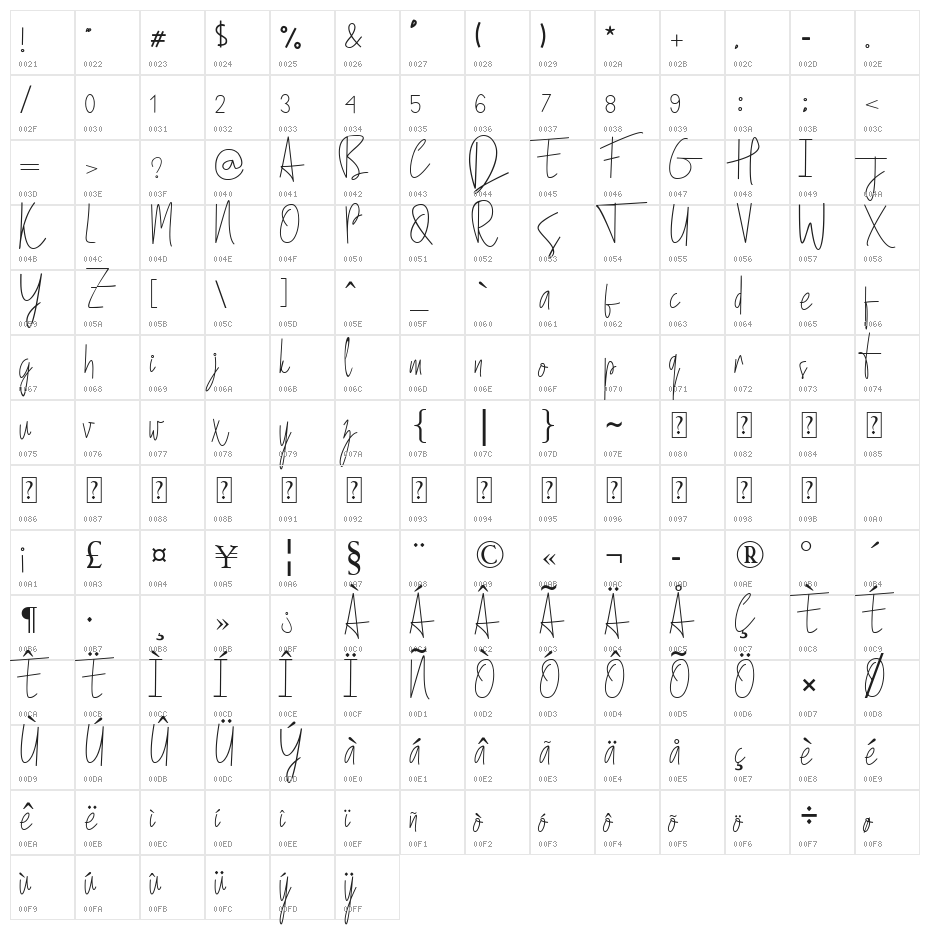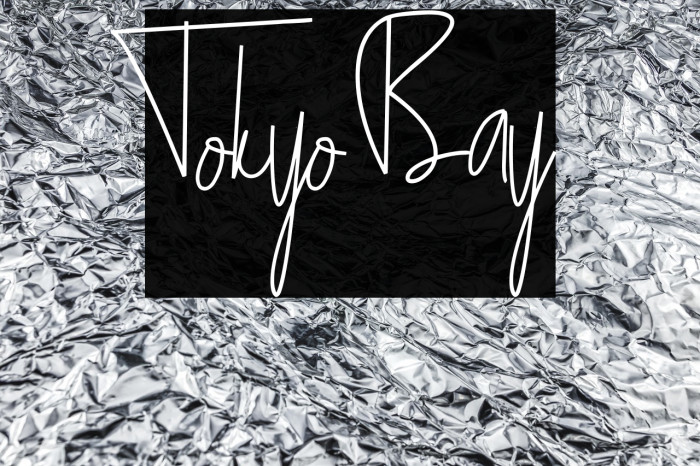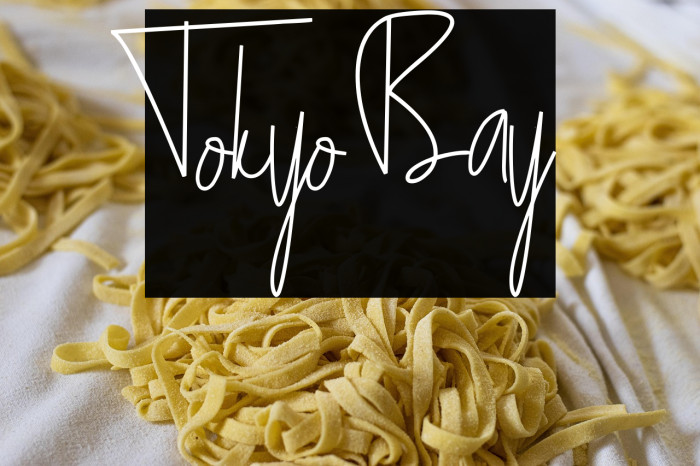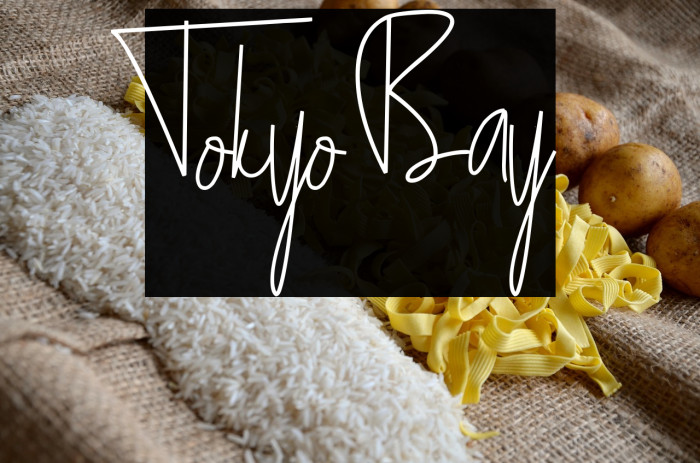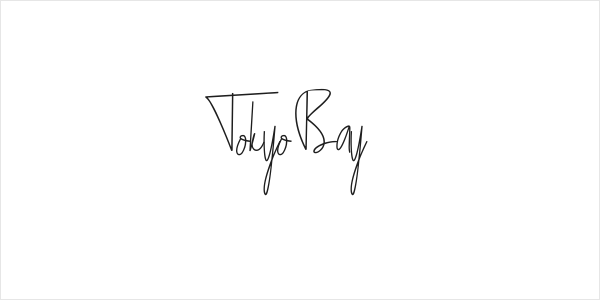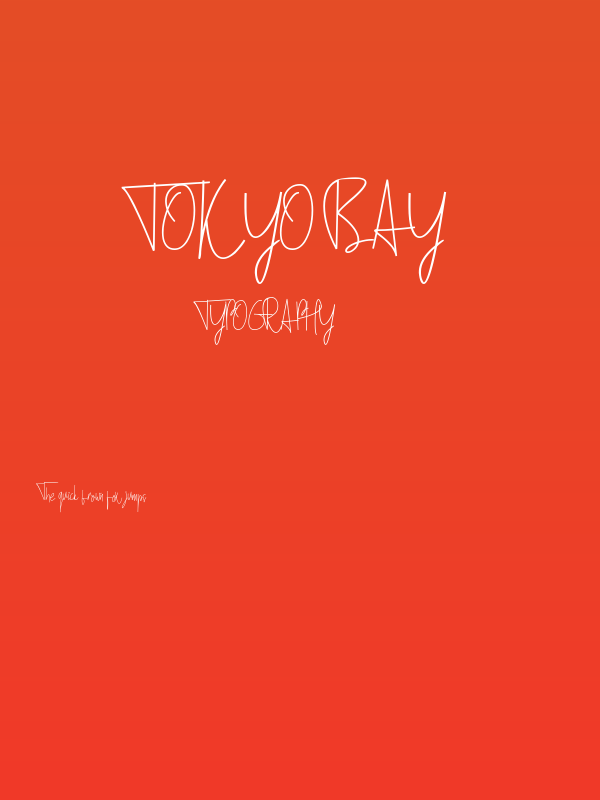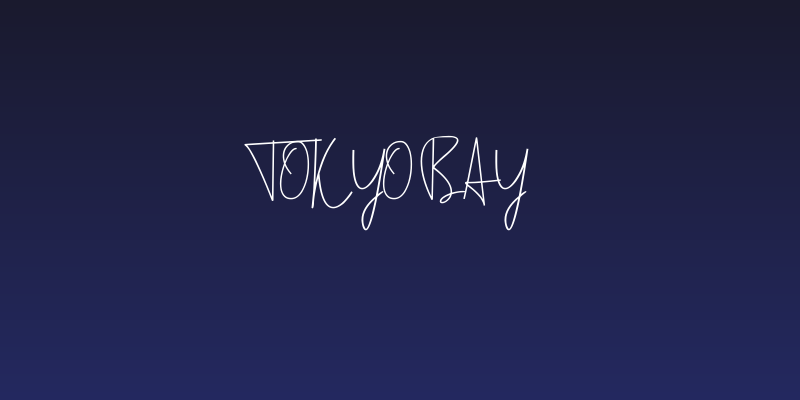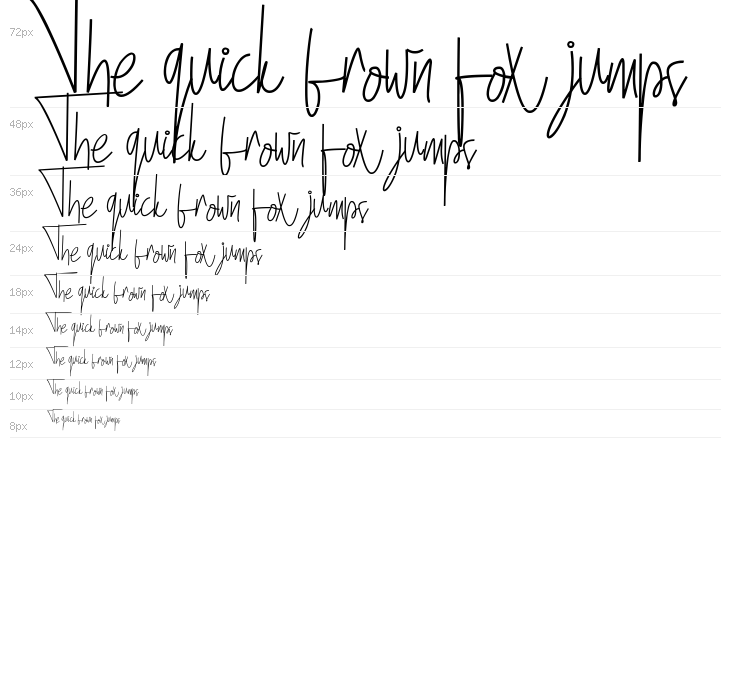
Tokyo Bay Font
Tokyo Bay Description
This font features a unique and artistic handwritten style, characterized by its tall, narrow letters and playful curves. The uppercase letters exhibit a whimsical, almost sketch-like quality, with varying line thickness that adds a dynamic feel. The lowercase letters maintain the same playful essence, with some characters featuring distinctive loops and swirls. Numbers are consistent with the overall style, maintaining the same narrow and elongated form. Special characters are creatively integrated, adding to the font's artistic appeal. This font is ideal for projects that require a personal, creative touch.
| Overall Style | Artistic |
| Proposed Projects | Ideal for creative projects such as greeting cards, artistic posters, and personal branding. |